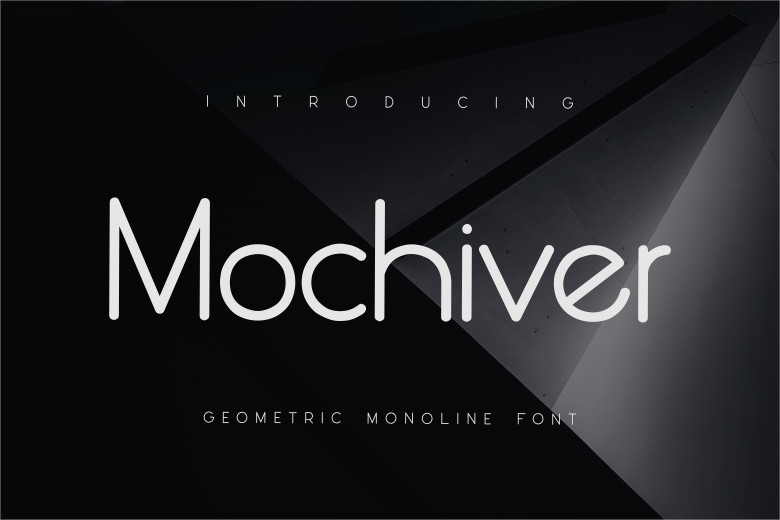
Mochiver Font
Mochiver is well-suited for stylish and slick The sans-serif typeface has been optimized for stunning logos, branding, and quotations. Every letter contains a distinct mark and attractiveness that can bring design to life!
Mochiver Sans Serif Font